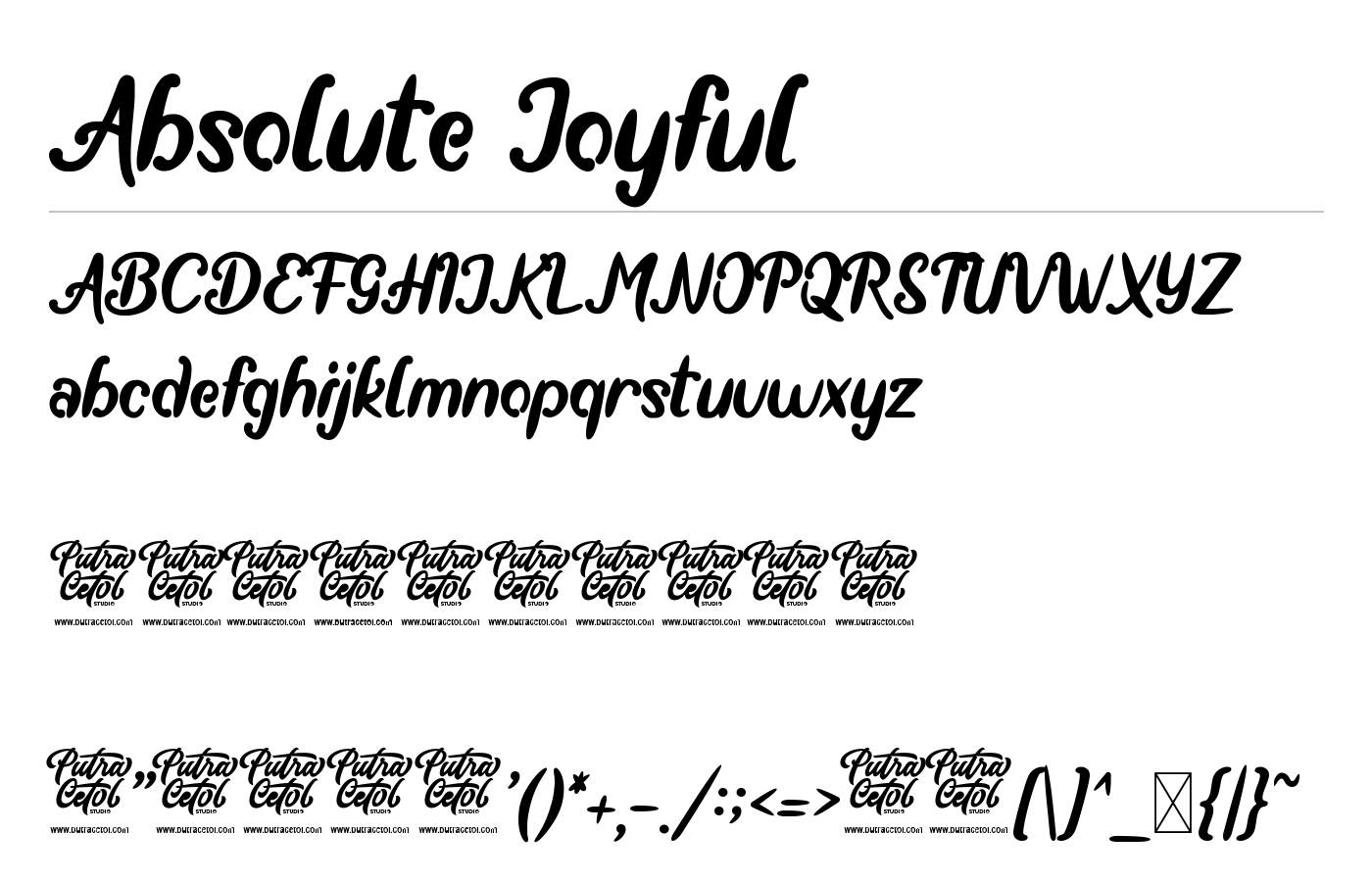
Absolute Joyful is a lively script font with a bold, rounded stroke and playful letterforms that convey a warm and friendly personality. Its smooth curves and moderate contrast make it ideal for creative branding, invitations, and headlines where a casual yet impactful tone is desired. This font works best in designs that aim to evoke joy and approachability, such as lifestyle products, children’s content, or informal marketing materials.
Absolute Joyful Font
About Absolute Joyful Font
| Font family | Absolute Joyful Font |